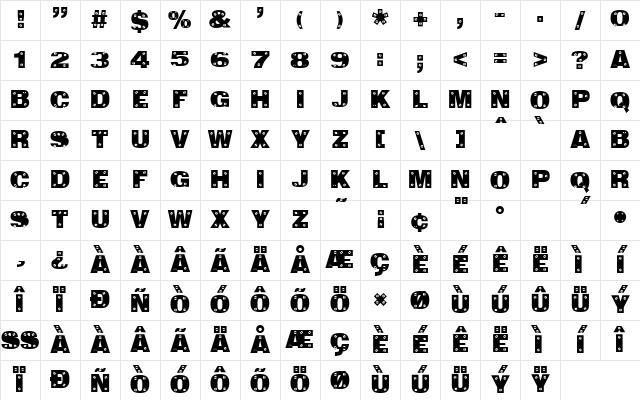
Sans Plate Caps Regular
Sans Plate Caps Family
Design Context for Sans Plate Caps
Sans Plate Caps is a composed and adaptable typeface that performs quietly and consistently across a wide range of design contexts.